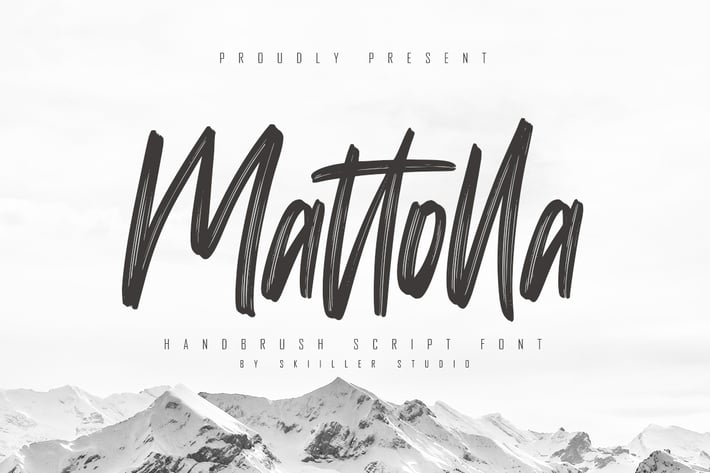
Mattolla - Handbrush Script Font
Mattolla is a natural handmade textured brush text font with an irregular base line. Suitable for use in title design. Such as , films, quotes, branding, logos, and others.
+ Ligature
+ Basic Latin Language Support (AÀÁÂÃÄÅCÇDÐEÈÉÊËIÌÍÎÏÑOØÒÓÔÕÖUÙÜÚÛWYÝŸÆß )